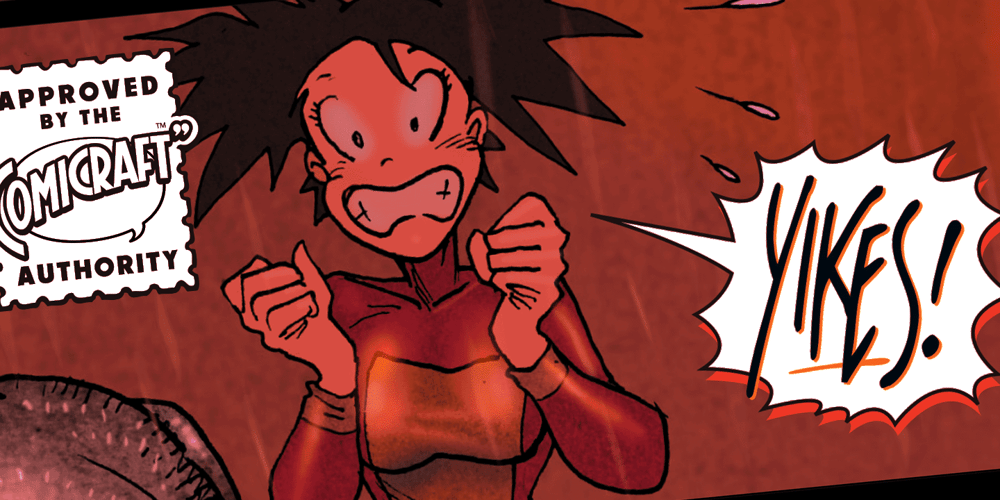
Shout Out
Shout Out font
Shout Out Font Family was designed by Richard Starkings, John Roshell and published by Comicraft. Shout Out contains 3 styles and family package options. Here’s a big shout out to all our Loud and Proud font homies — If you’ve got a good set of lungs on you — fill ’em up and get ready to Shout, SHOUT! Yes, let it all out because this is a font you can’t do without — It will make you wanna SHOUT! Throw your hands up, SHOUT! Kick your heels back, SHOUT! Throw your head back, SHOUT! Come on now, SHOUT! And don’t forget to say you will… Don’t forget to SHOUT! Yeah yeah yeah yeah, SHOUT! A little bit softer now, (Shout) A little bit louder now, SHOUT! A LITTLE BIT LOUDER NOW! SHOUT! SHOUT! PHEW — Who says Comicraft doesn’t know how to Pump it Up AND Get Down?!